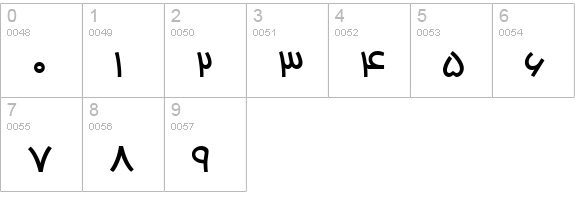
B Homa Font Details
B Homa font is a stunning typeface that combines elegance and modernity in a unique way. With its sleek lines and delicate curves, this font is perfect for adding a touch of sophistication to any project. Whether you're designing a logo, creating a poster, or crafting a website, B Homa font will elevate your work to the next level. What's even better is that B Homa font is completely free to download at FontsMarket.com. This means you can access this beautiful font without any cost, making it accessible to everyone who wants to enhance their designs with a touch of class. Don't miss out on the opportunity to elevate your projects with the beautiful B Homa font – download it for free today!